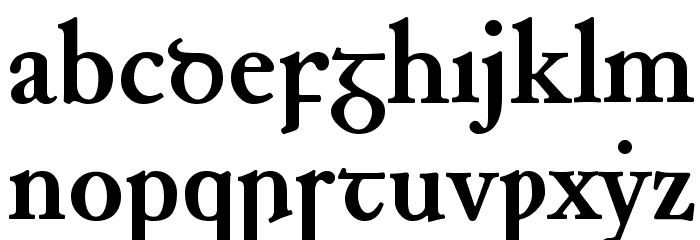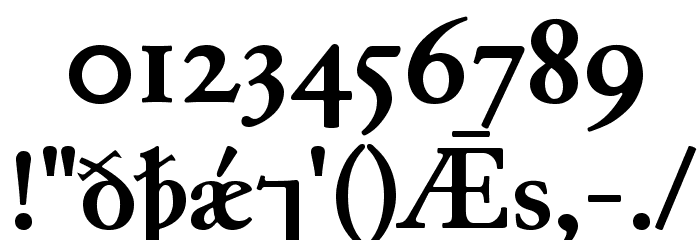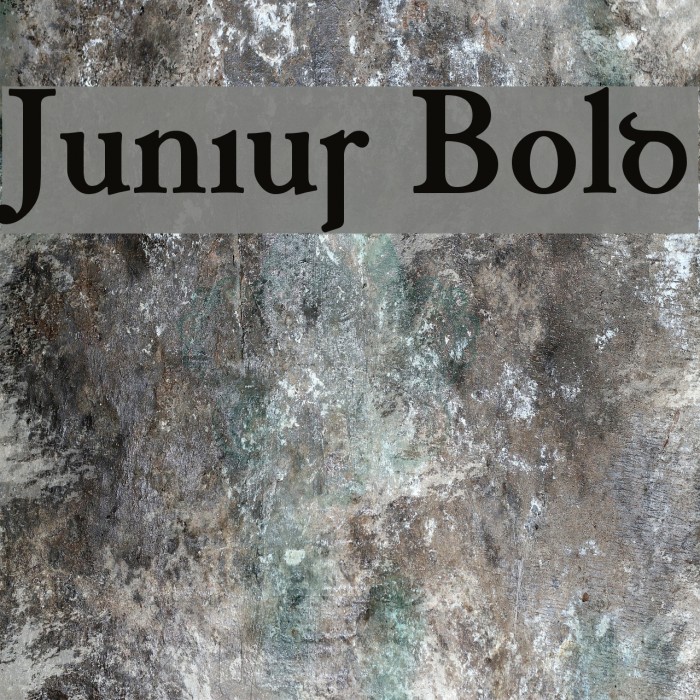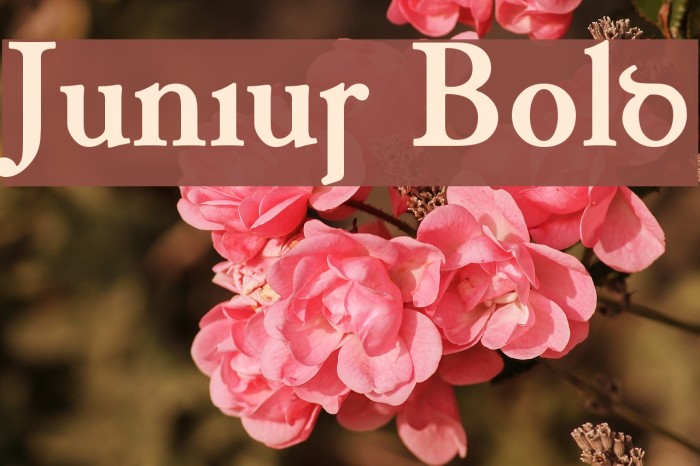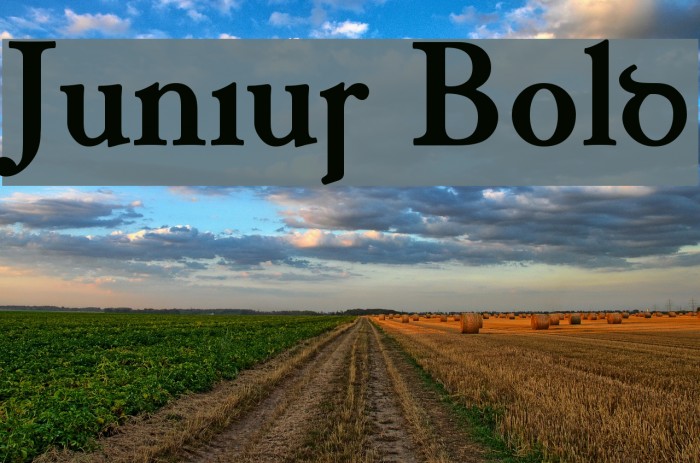
Junius Bold Font
This font features a distinctive and bold style with a strong presence. The characters exhibit a unique blend of traditional and modern elements, characterized by sharp serifs and a slightly condensed form. The uppercase letters are particularly striking, with a mix of angular and curved lines that create a dynamic visual rhythm. The lowercase letters maintain a consistent style, with rounded forms and pronounced serifs that enhance readability. Numbers are clear and bold, matching the overall aesthetic of the font. Special characters are thoughtfully designed to complement the letterforms, ensuring a cohesive look across all text elements.
A bold, serif font with a blend of traditional and modern elements.
- Proposed Projects: Ideal for branding, headlines, posters, and editorial design projects where a strong, impactful typeface is needed.